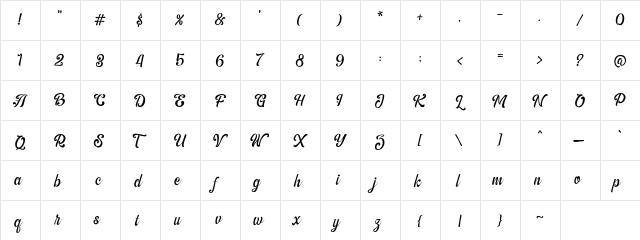
The Amberton DEMO Regular
| Foundry | Letterhend Studio |
| Designer | Sahrul Hidayat |
Design Context for The Amberton DEMO Typeface
The Amberton DEMO is a composed and adaptable typeface that performs quietly and consistently across a wide range of design contexts.